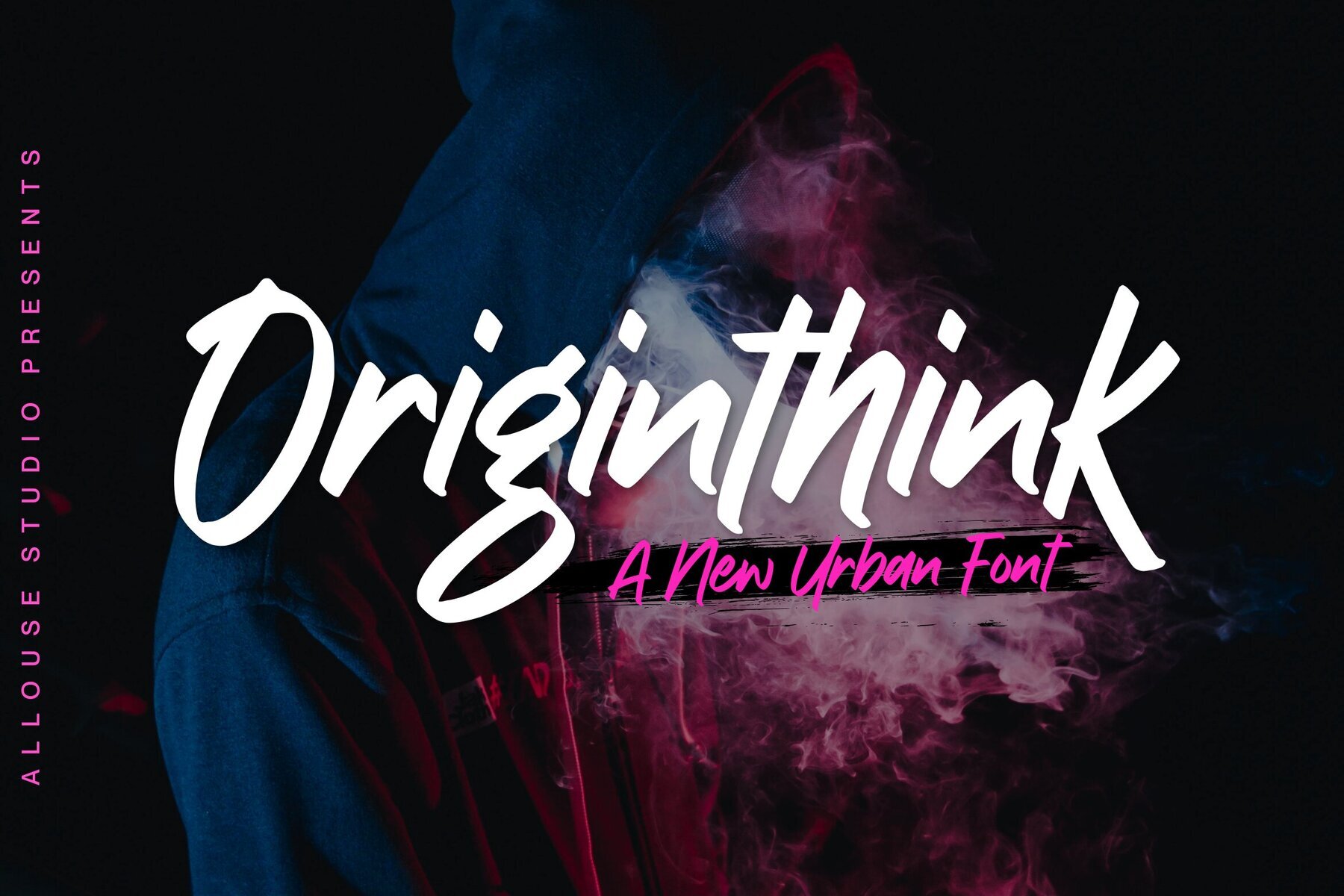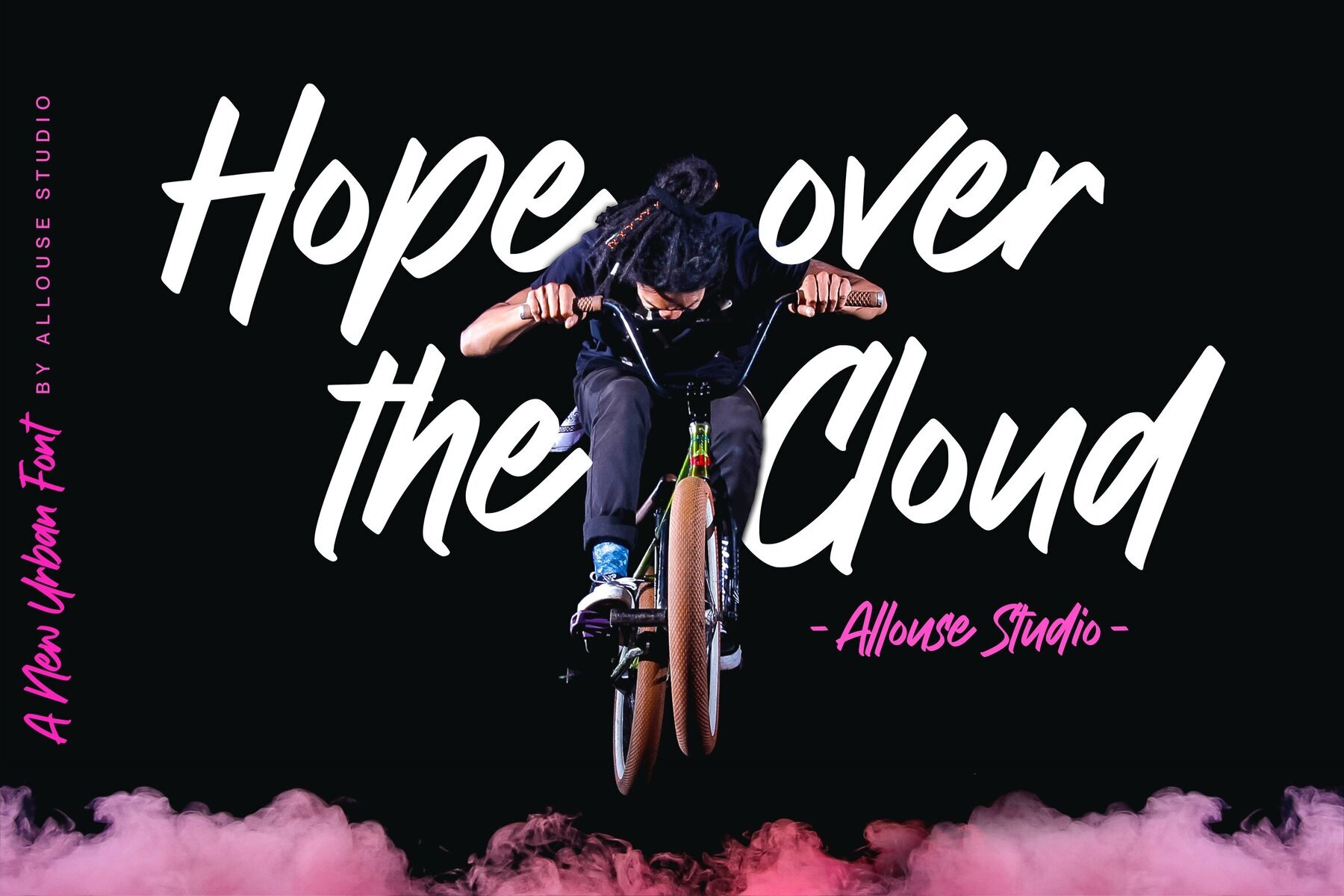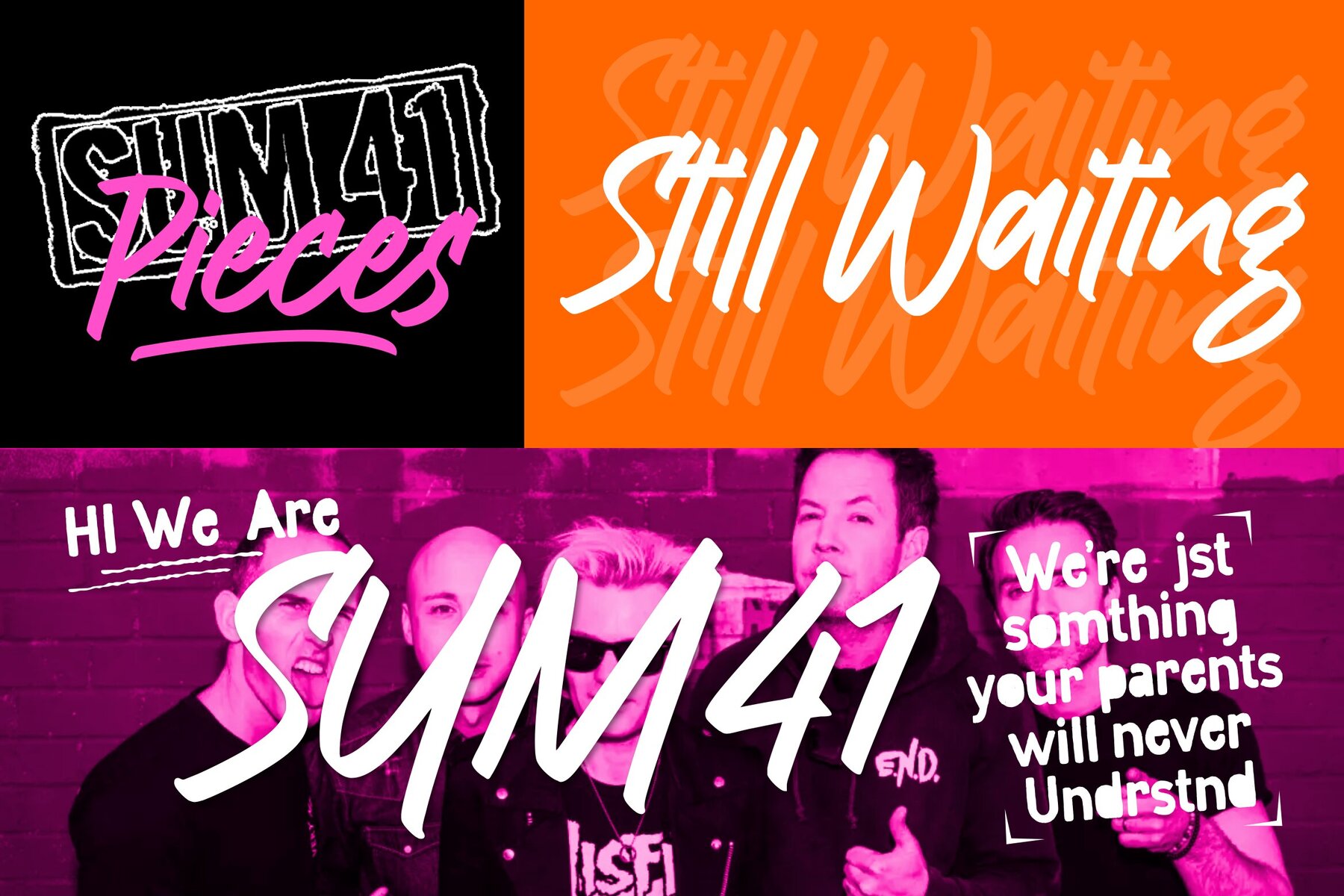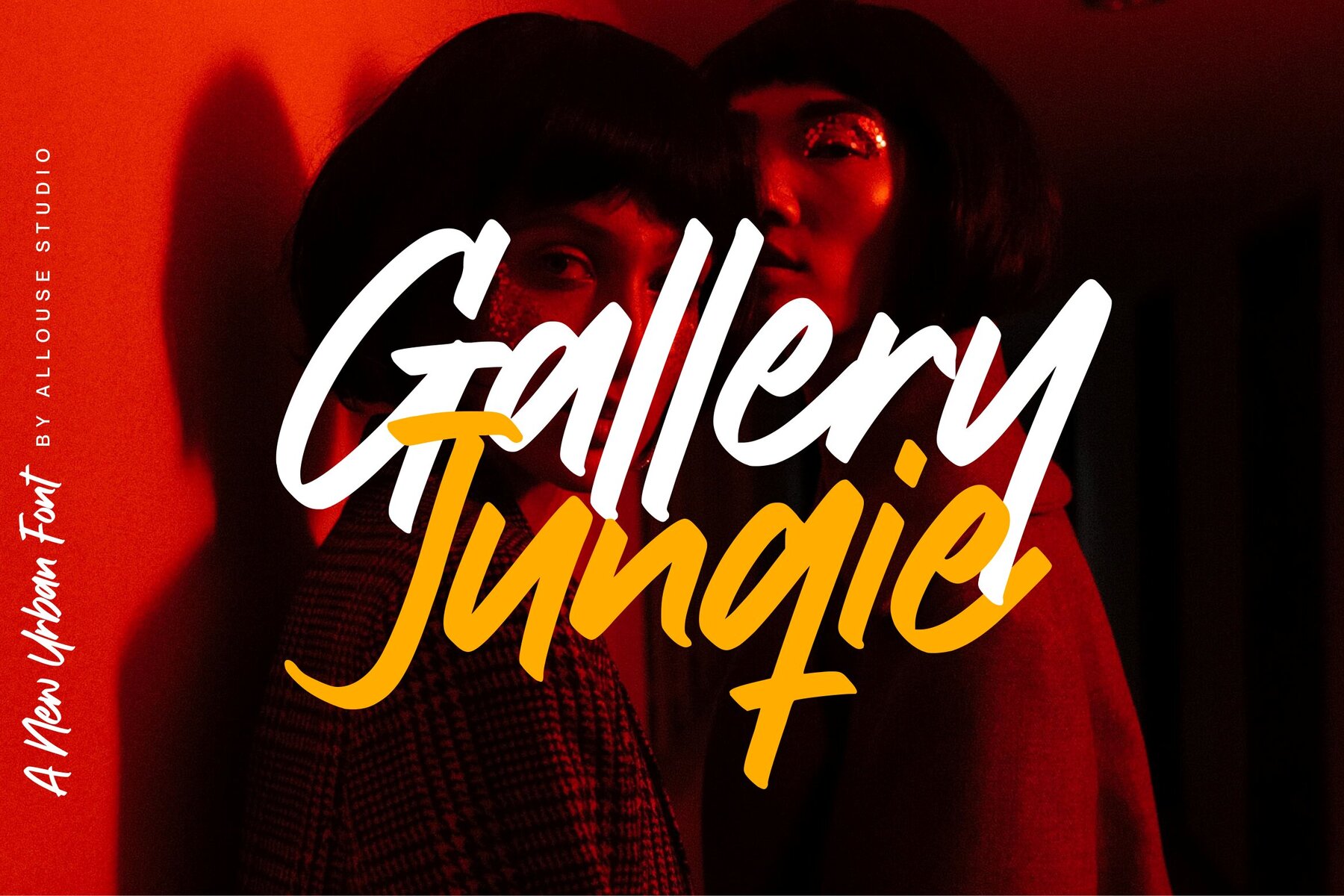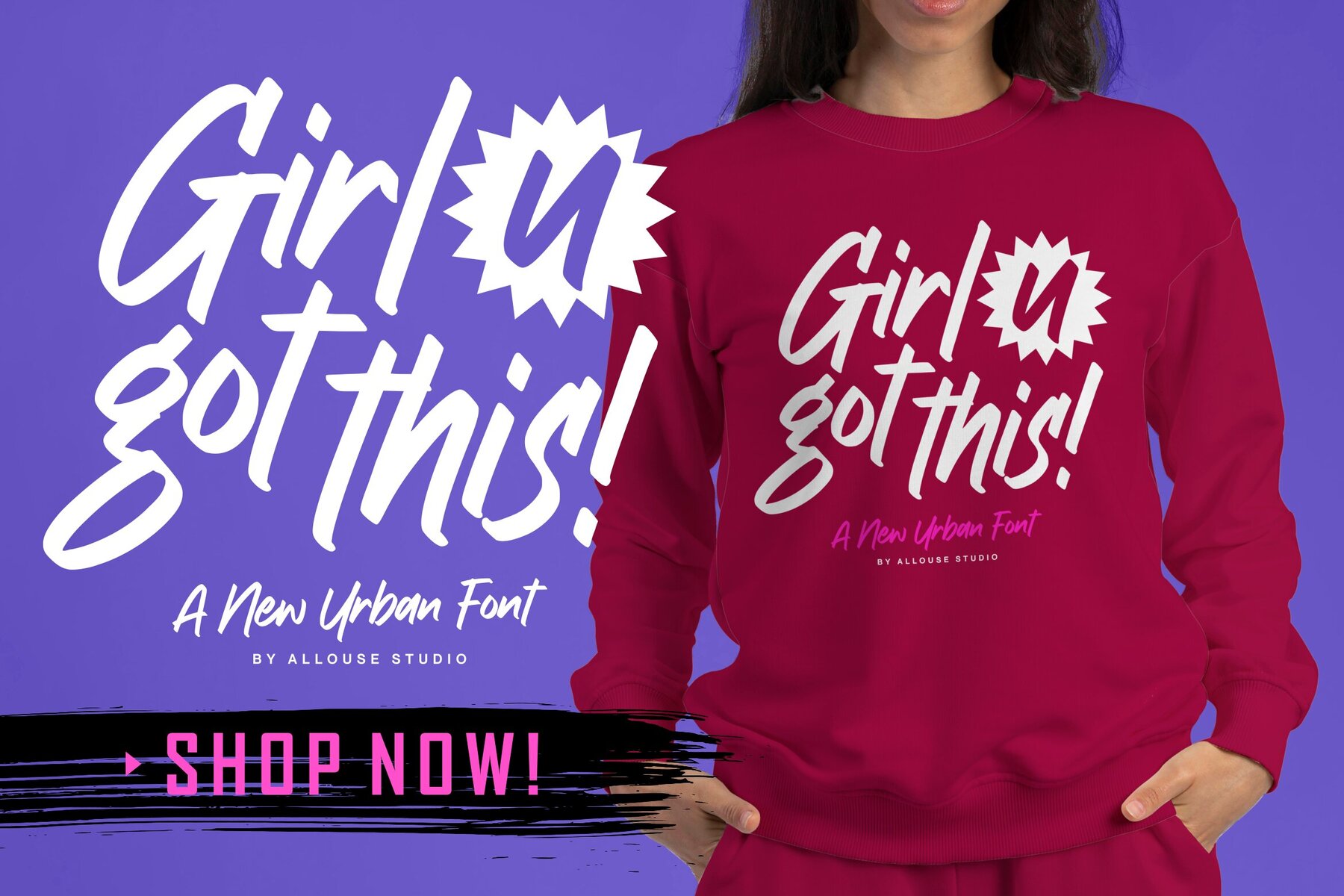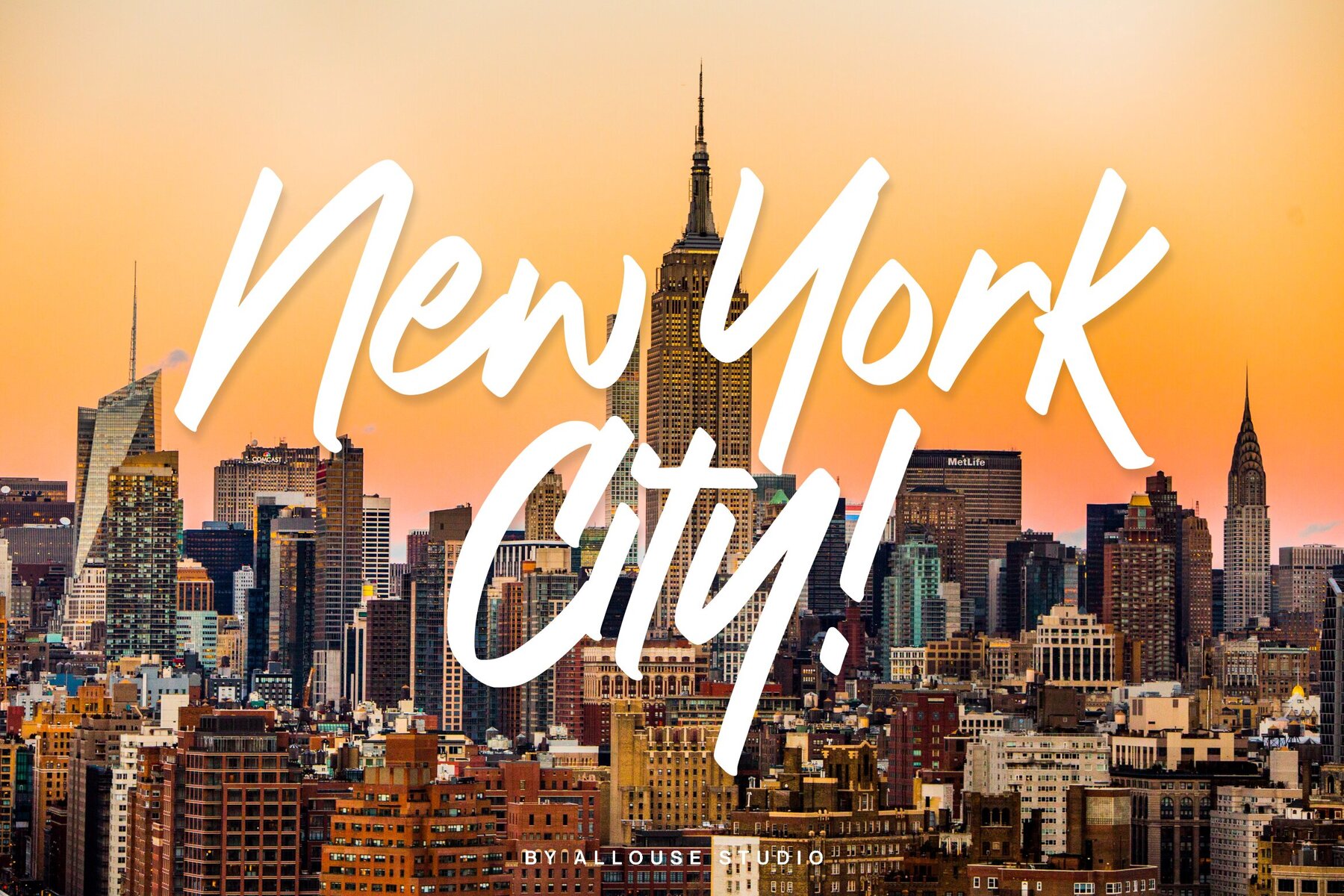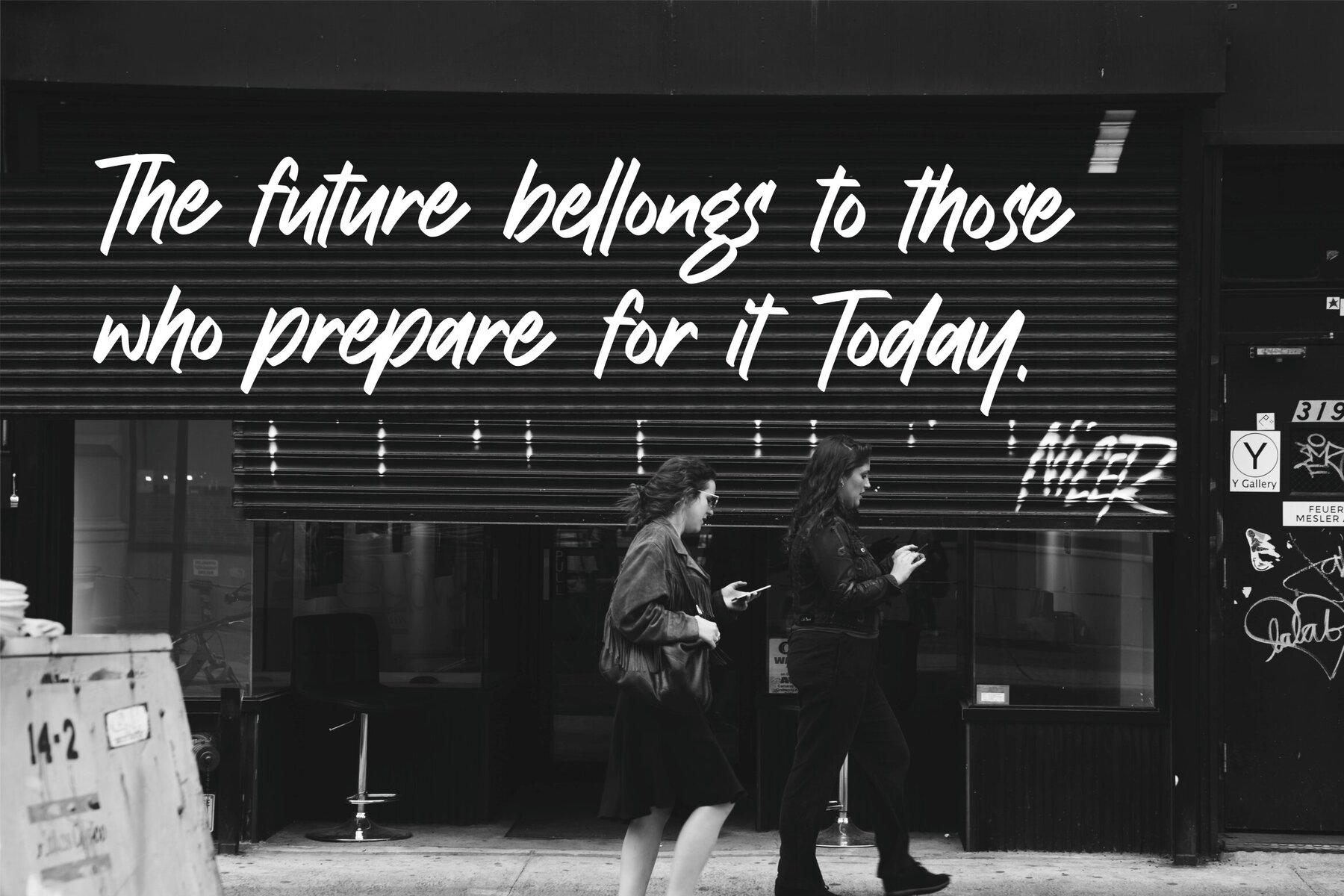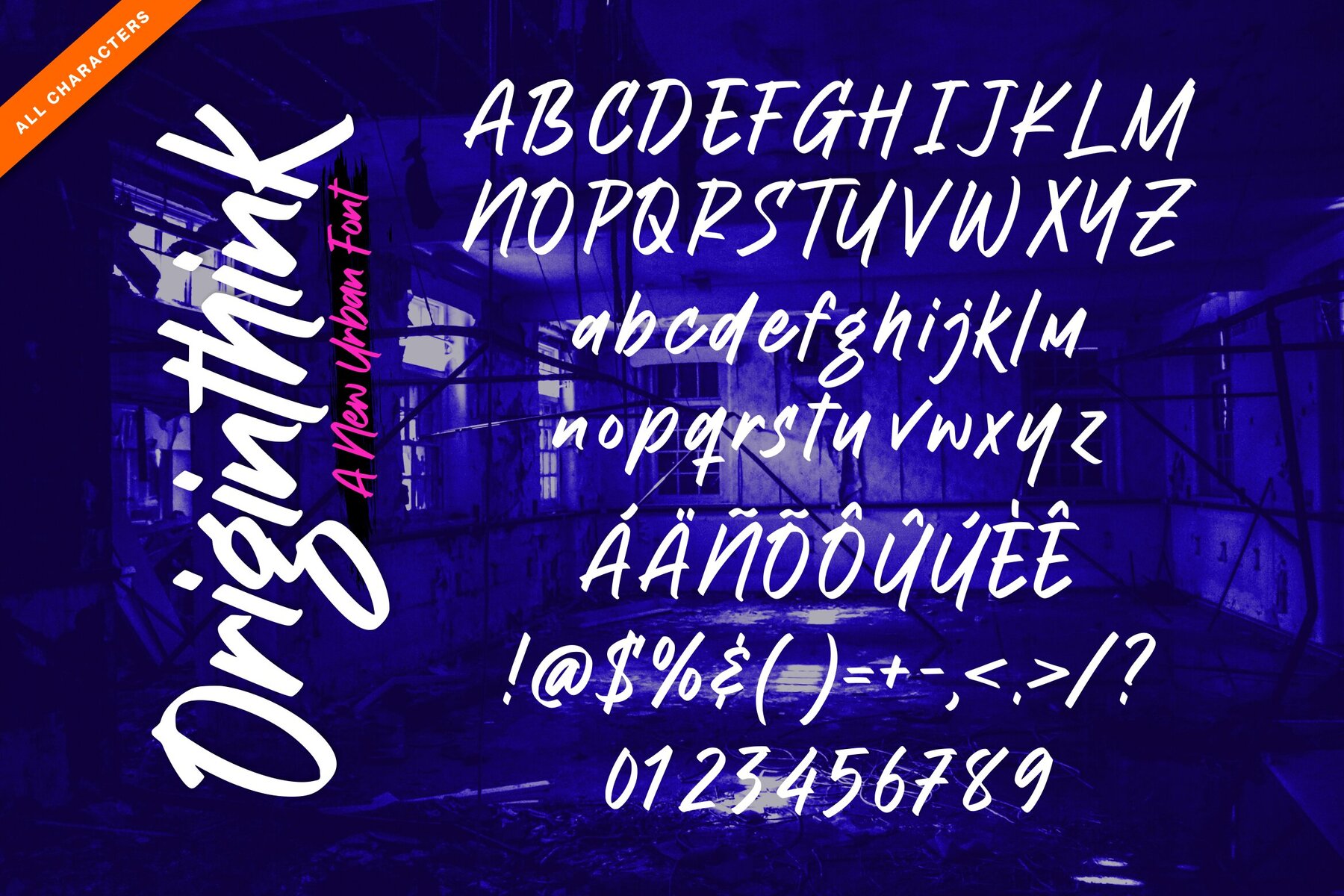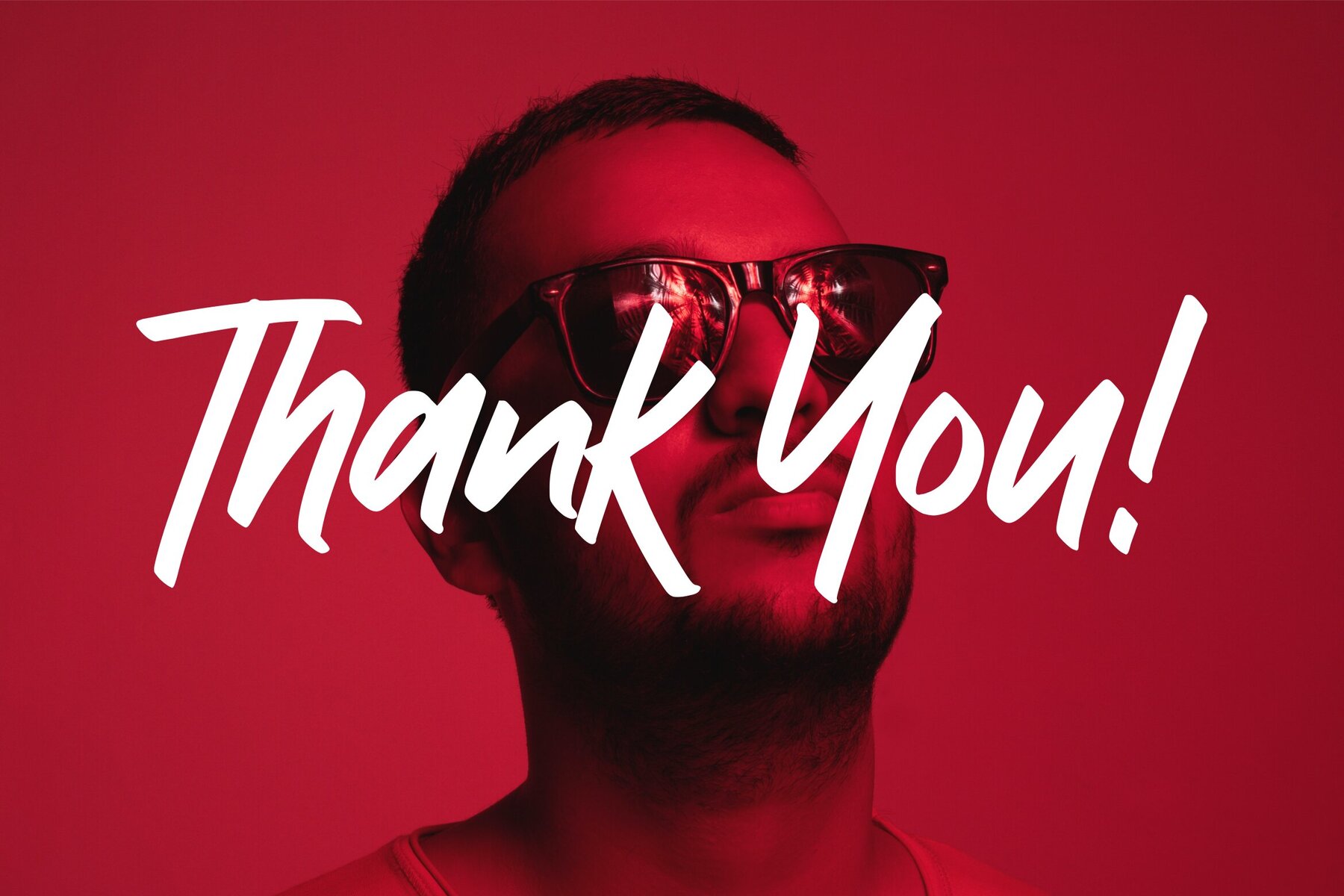
Originthink Font
Originthink Regular
Originthink by Allouse.Studio is an adaptable font, tailored for diverse design applications. Whether your focus is product packaging or creating a distinctive brand identity, this typeface delivers the versatility necessary for modern design challenges. Ideal for adding a touch of sophistication to magazines, enhancing social media posts, or adding elegance to wedding materials, Originthink stands as a reliable choice. Additionally, it's an excellent way to articulate words against a backdrop for impactful visual communication.Originthink: A Versatile Typeface for Design Projects